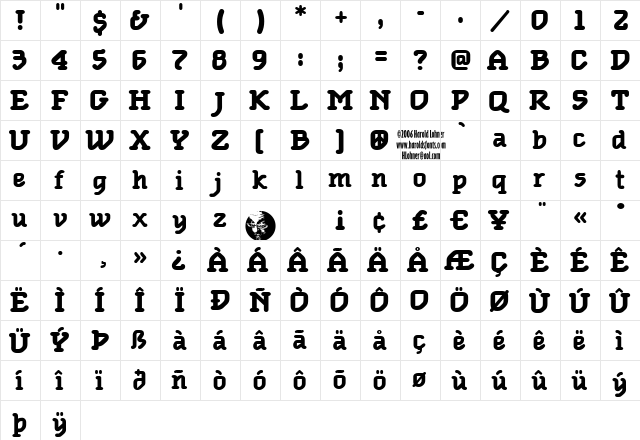
Foam Regular Font Preview
Foam Regular Regular
Foam Regular Font Details
Design Context for Foam Regular Typeface
Foam Regular offers clean, dependable letterforms without strong stylistic allegiance, making it a practical choice for designers who need flexibility.